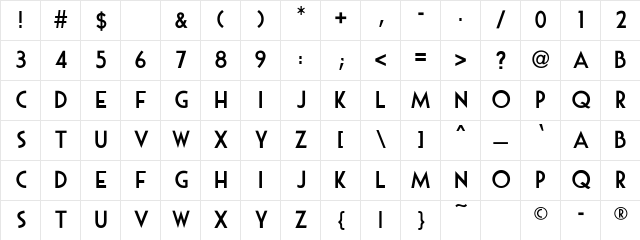
Mouse Deco Regular
Designer: Supercarguy
Design Context for Mouse Deco
Mouse Deco is a composed and adaptable typeface that performs quietly and consistently across a wide range of design contexts.
Pro Tip: Use Mouse Deco in both headline and body roles to test its range before committing to a single application.